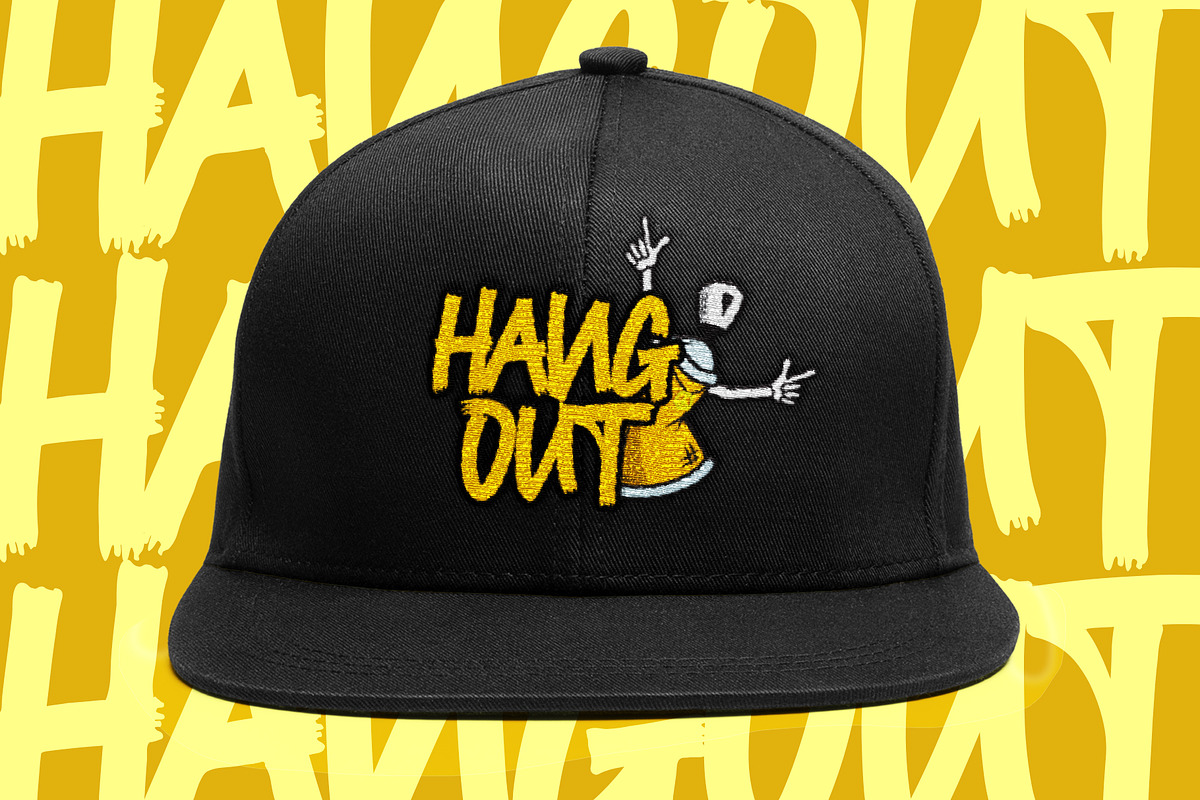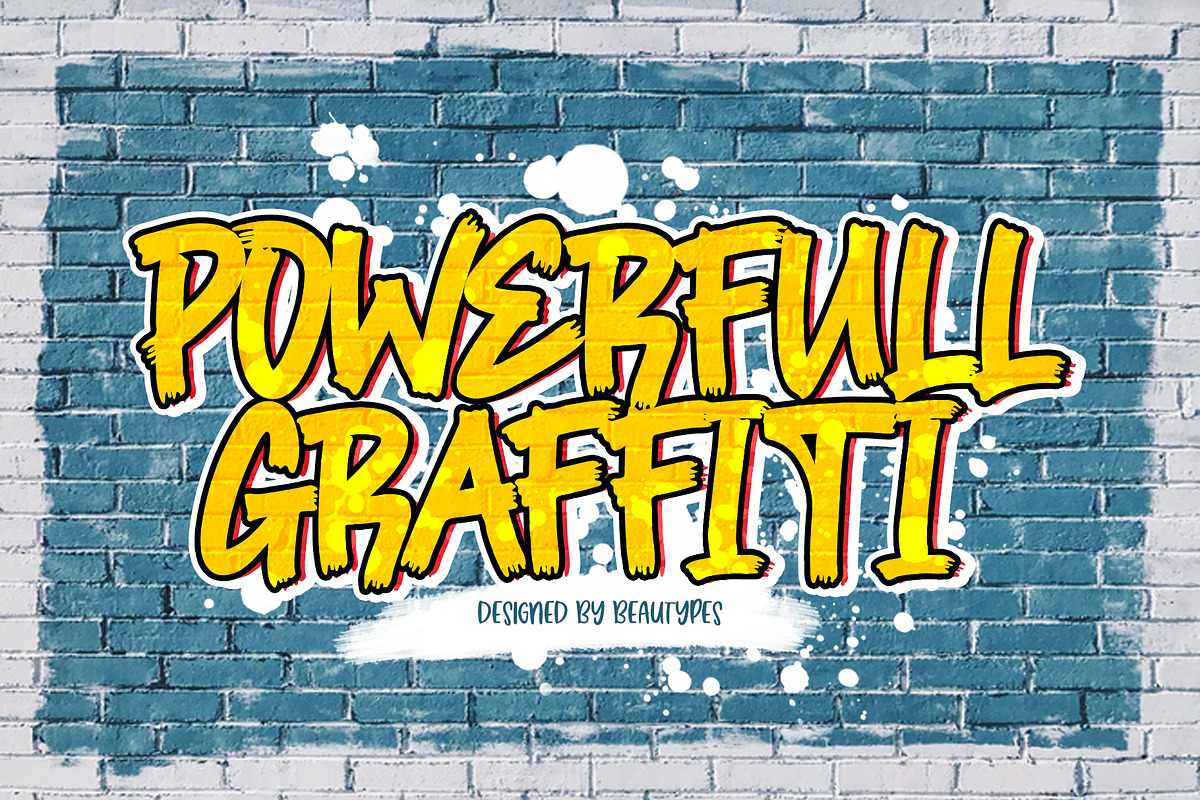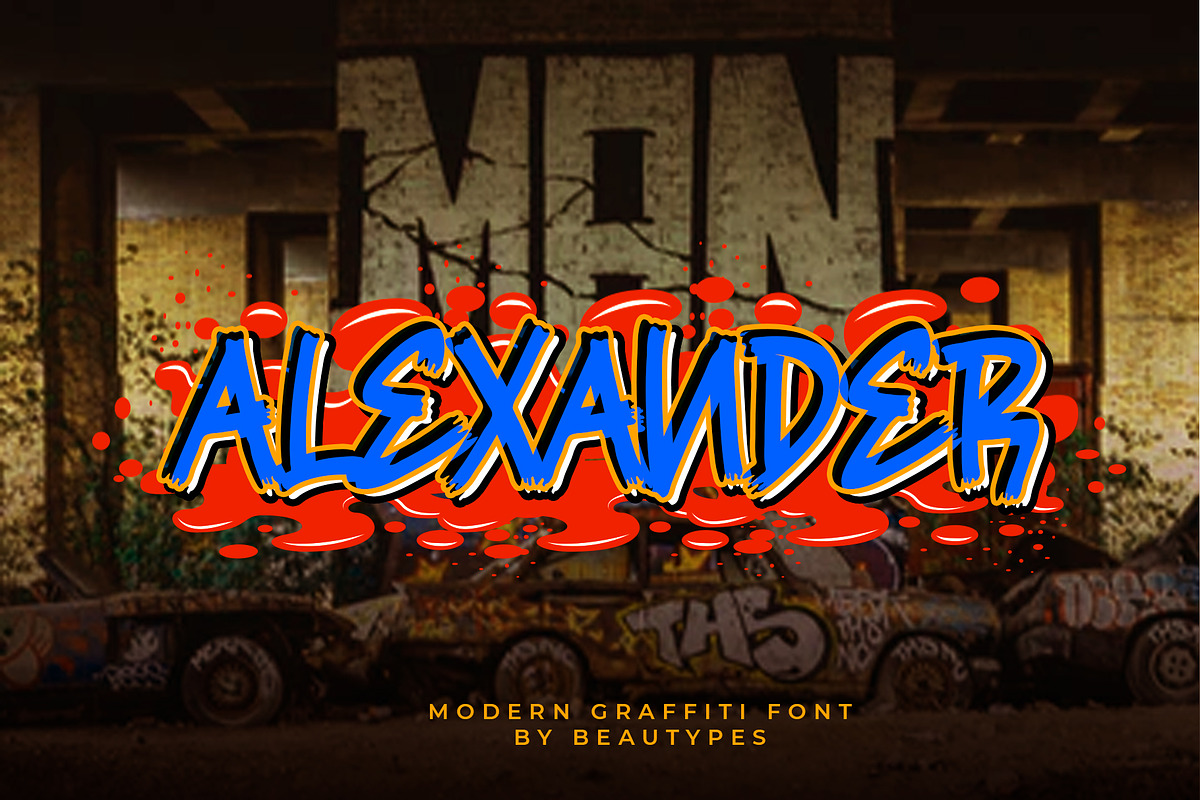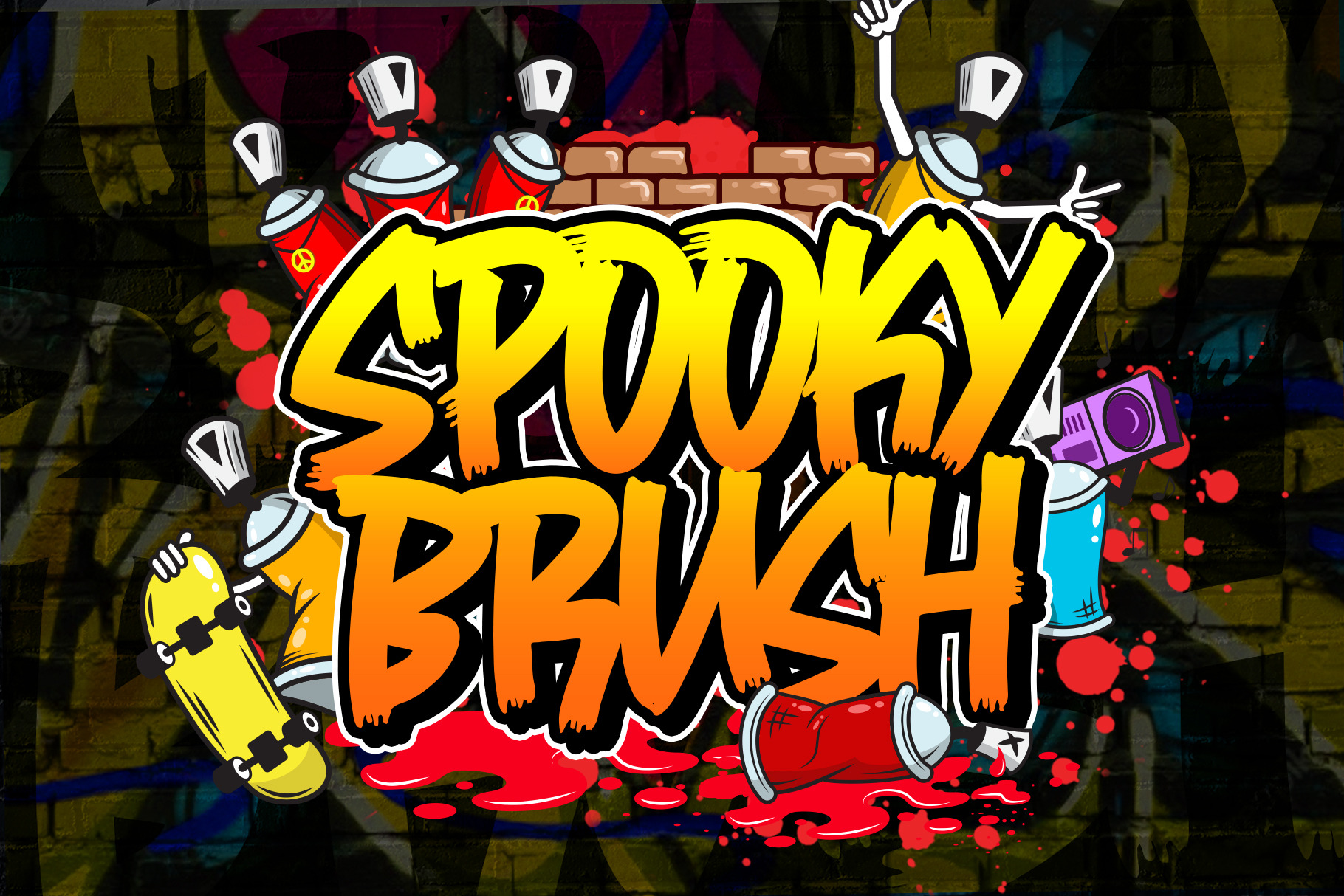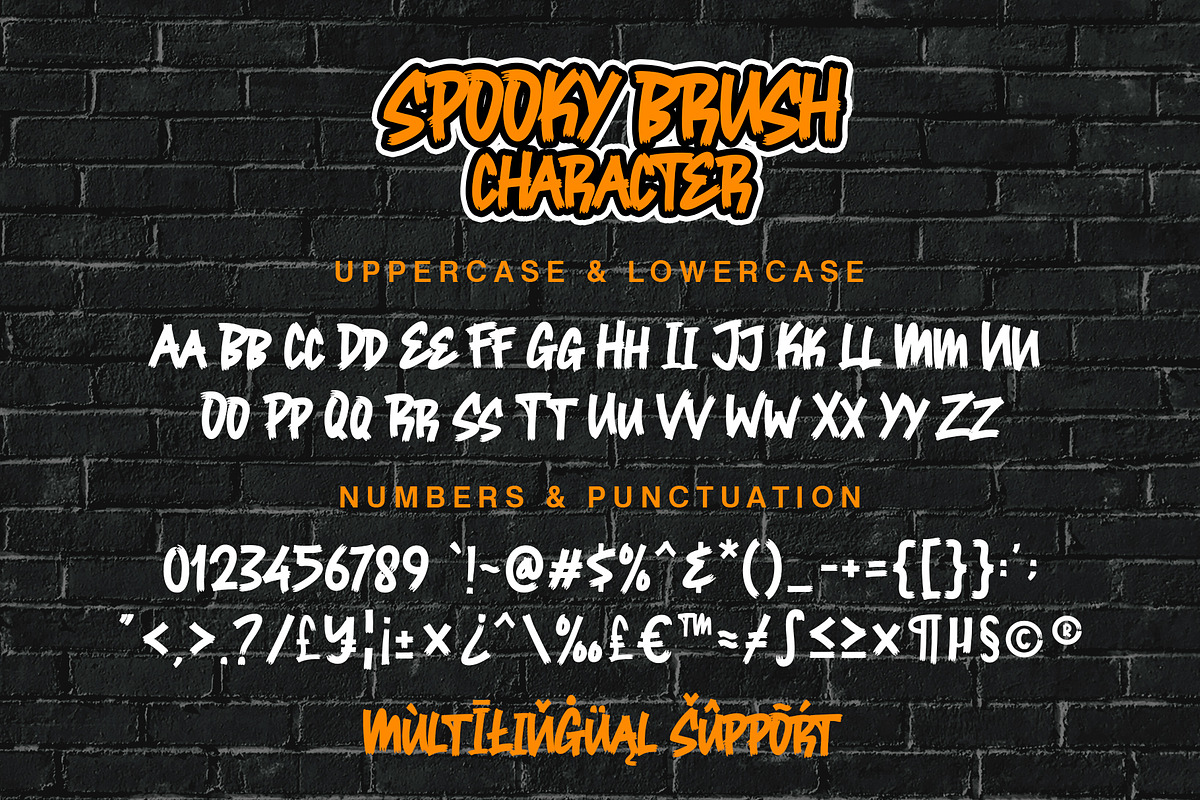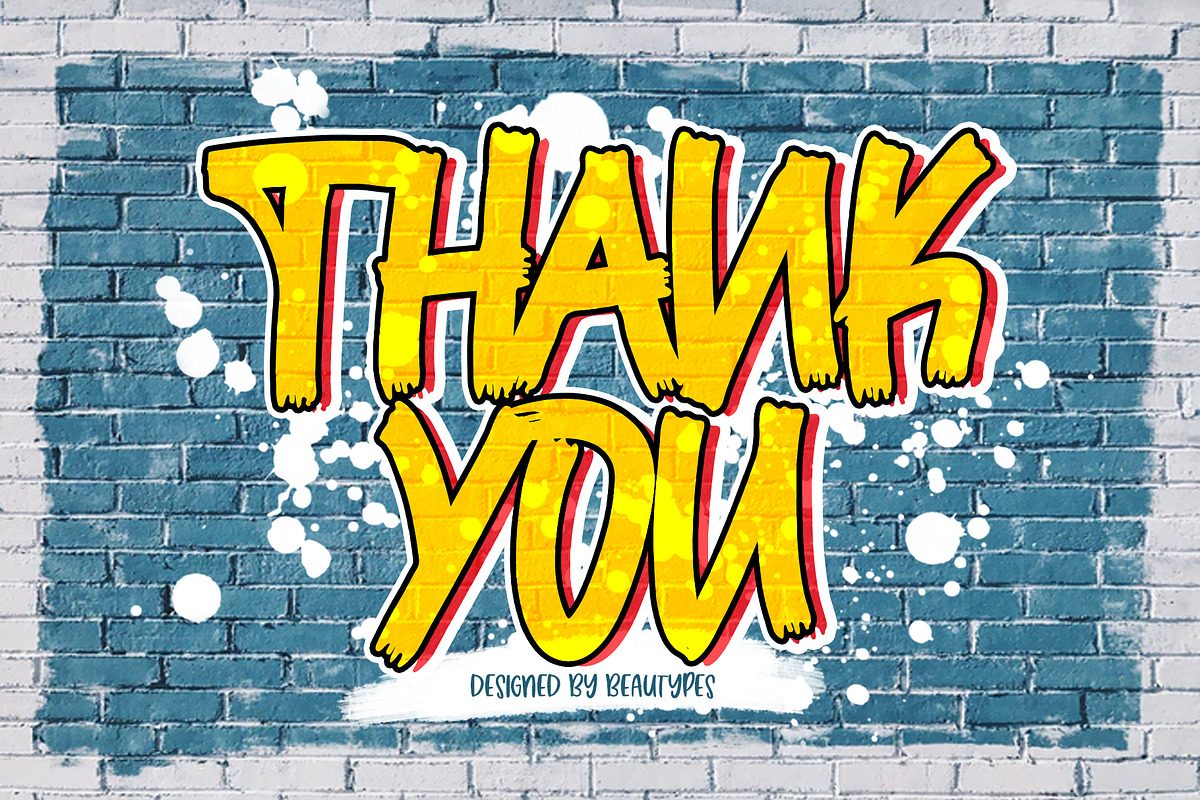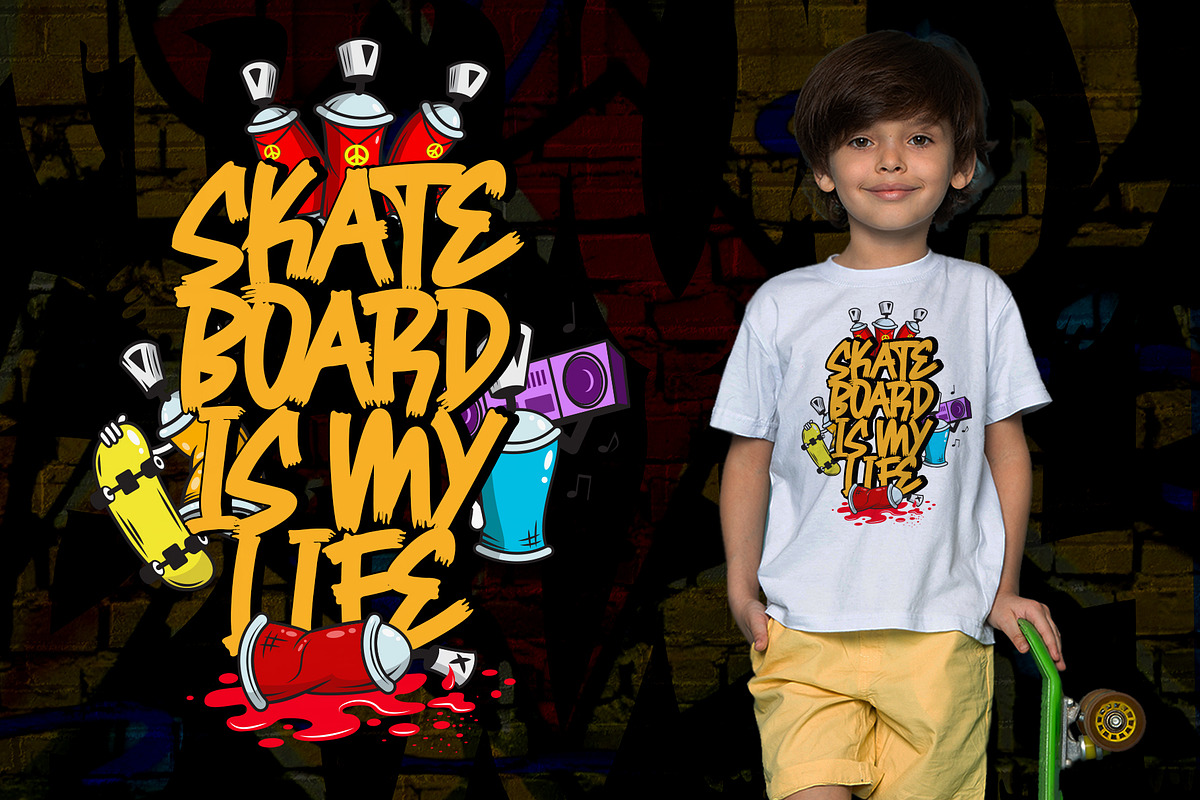
Spooky Brush | Graffiti Brush Font
Spooky Brush is a supercharged, street-wise brush font bursting with energy. Spooky Brush is guaranteed to deliver an unapologetically loud & fast-paced message; ideal for logos, apparel, quotes, product packaging, or anything which needs a typographic turbo-boost.